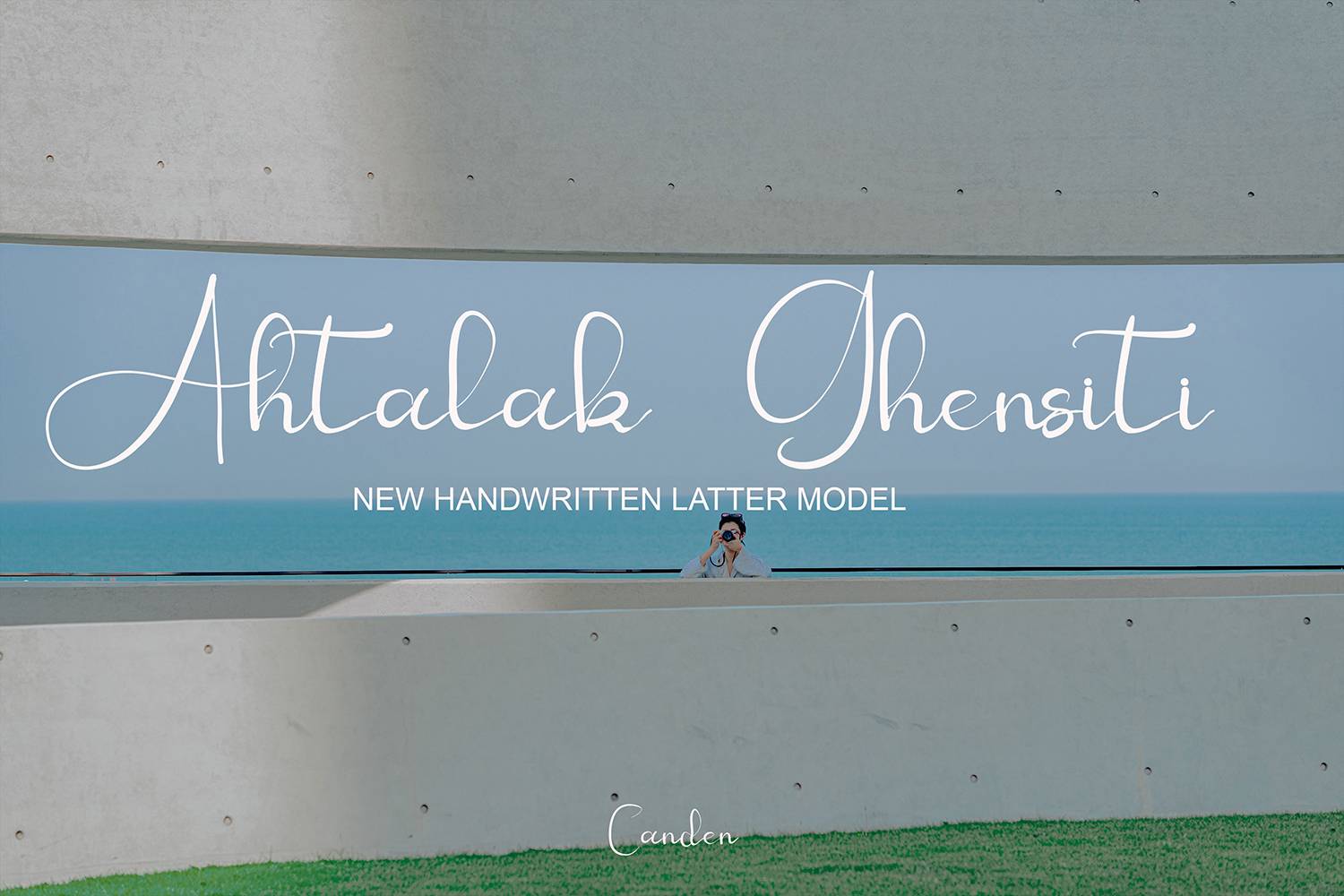
Ahtalak Ghensiti is a delicate, handwritten script font featuring elegant, flowing letterforms with fine strokes and subtle flourishes. Its light weight and airy spacing give it a graceful, whimsical feel, making it ideal for invitations, branding, or any design that seeks a personal, artistic touch. This font works best in creative, feminine, or romantic contexts where a stylish, handcrafted look is desired.
Ahtalak Ghensiti Font